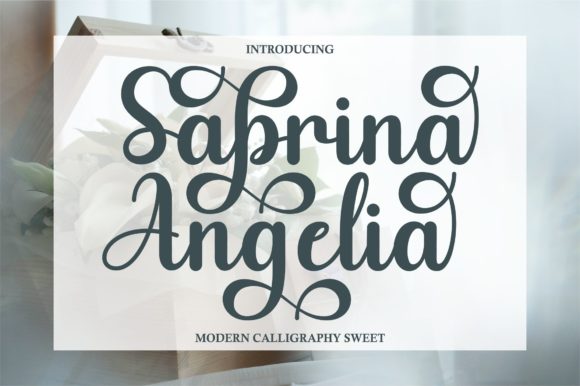
Step into a world of elegance and creativity with Sabrina Angelia Font, a handcrafted masterpiece that exudes charm and sophistication. This exquisite script font, meticulously designed by the renowned RGB Studio, is a visual symphony that captivates the hearts of designers, artists, and typography enthusiasts alike.
Experience the allure of Sabrina Angelia, a font that dances across the page with its graceful strokes and enchanting curves. Let your imagination soar as you explore its endless possibilities, from heartfelt love letters to striking posters that command attention. With Sabrina Angelia, your creations will radiate an air of timeless beauty, leaving an indelible mark on the hearts of your audience.
Dive into the boundless versatility of Sabrina Angelia, a font that effortlessly adapts to your creative vision. Whether you're crafting stunning wedding invitations, heartfelt greeting cards, or eye-catching social media posts, Sabrina Angelia seamlessly complements your designs, adding a touch of elegance and sophistication. Its versatility knows no bounds, making it the perfect companion for any project that demands a touch of creative flair.
Unleash the power of Sabrina Angelia and transform your designs into captivating works of art. With its PUA coding, you'll have effortless access to a treasure trove of glyphs and sweeps, empowering you to create intricate designs that captivate and inspire. Let your creativity flourish as you explore the endless possibilities that await you with Sabrina Angelia.
Indulge in the beauty of Sabrina Angelia today and let your designs shine with brilliance and grace. As a font that speaks to the heart and ignites the imagination, Sabrina Angelia is more than just a collection of letters; it's a gateway to a world of creative possibilities. Embrace its enchanting allure and embark on a journey of design excellence.